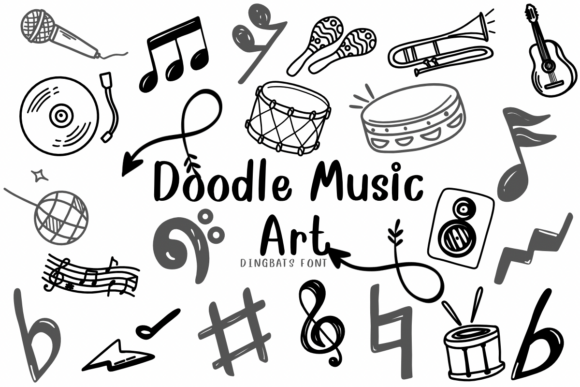
Doodle Music Art Font: Elevate Your Creative Projects with a Unique Dingbats Font
Doodle Music Art Font is a creative and versatile dingbats font that can add a touch of personality to your projects. Whether you’re looking to create eye-catching wedding invitations, DIY crafts, decorations, logos, or other creative ideas, this font is the perfect choice. In this article, we’ll explore the features and benefits of Doodle Music Art Font and how it can enhance your creative projects.
What is Doodle Music Art Font?
Doodle Music Art Font is a dingbats font that features a unique and playful design. The font is made up of various musical notes, symbols, and other creative elements that are perfect for adding a touch of music and art to your projects. The font is highly versatile and can be used for a wide range of creative projects, from wedding invitations and DIY crafts to decorations, logos, and more.
Key Features of Doodle Music Art Font
- Unique and Playful Design: Doodle Music Art Font features a one-of-a-kind design that is both playful and creative.
- Musical Elements: The font includes a variety of musical notes, symbols, and other elements that are perfect for music-themed projects.
- Highly Versatile: The font can be used for a wide range of creative projects, from wedding invitations and DIY crafts to decorations, logos, and more.
Benefits of Using Doodle Music Art Font
There are many benefits to using Doodle Music Art Font for your creative projects. Here are just a few:
1. Adds a Personal Touch
Doodle Music Art Font adds a personal touch to your projects, making them stand out from the crowd. The font’s unique design and musical elements make it perfect for adding a touch of personality to your projects.
2. Enhances Creativity
The font’s creative and playful design can help enhance your creativity and inspire new ideas. Whether you’re working on a wedding invitation or a DIY craft, Doodle Music Art Font can help you think outside the box and come up with unique and creative solutions.
Creative Project Ideas Using Doodle Music Art Font
Doodle Music Art Font is highly versatile and can be used for a wide range of creative projects. Here are some ideas to get you started:
1. Wedding Invitations
Create beautiful and unique wedding invitations using Doodle Music Art Font. The font’s musical elements make it perfect for music-themed weddings.
2. DIY Crafts
Use Doodle Music Art Font to add a personal touch to your DIY crafts, such as scrapbooking, card making, and other paper crafts.
3. Decorations
Use the font to create decorative items, such as banners, garlands, and other decorative elements.
4. Logos and Branding
Doodle Music Art Font can also be used for logos and branding. The font’s unique design makes it perfect for businesses that want to stand out from the crowd.
Doodle Music Art Font is a unique and versatile dingbats font that can add a touch of personality to your creative projects. With its musical elements and playful design, it’s perfect for a wide range of projects, from wedding invitations and DIY crafts to decorations, logos, and more. Whether you’re a crafty individual or a designer, Doodle Music Art Font is a great choice for anyone looking to add a personal touch to their projects.